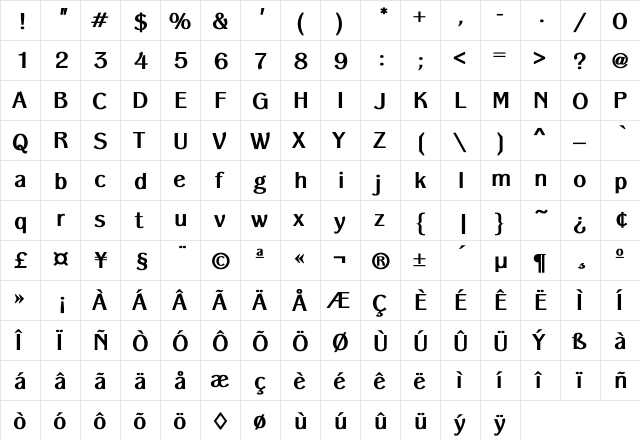
Pedigree Bold
Design Context for Pedigree Typeface
Pedigree takes a measured approach to typography — its balanced proportions and neutral character make it a reliable workhorse for both digital and print work. Its bold stroke weight gives it real presence on the page.